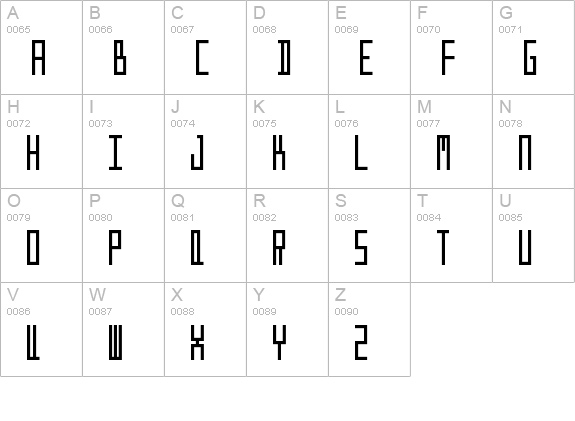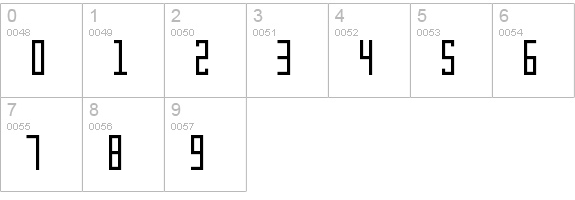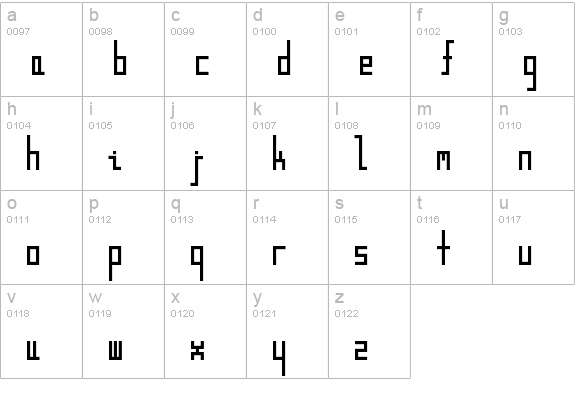
Curveless font is a unique and modern typeface that breaks away from traditional design conventions. With its clean lines and sharp edges, Curveless brings a sense of sleekness and sophistication to any project. This font is perfect for those who want to make a bold statement with their typography. What sets Curveless apart is its complete lack of curves. Instead, each letter is meticulously crafted with straight lines and angles, giving it a distinct geometric appearance. This minimalist approach not only adds a touch of elegance but also ensures legibility at any size. Curveless is a versatile font that can be used in a variety of contexts. Whether you're designing a logo, creating a website, or crafting a professional presentation, this font will help you stand out from the crowd. Its modern aesthetic will instantly grab attention and leave a lasting impression. One of the best things about Curveless font is that it is free. Yes, you read that right! You can freely download this font at FontsMarket.com. This means that everyone, from professional designers to students, can access and use Curveless without any cost. It's an incredible opportunity to elevate your design work without breaking the bank. So, why wait? Give your projects a fresh and contemporary look with Curveless font. Download it for free today at FontsMarket.com and transform your typography game.